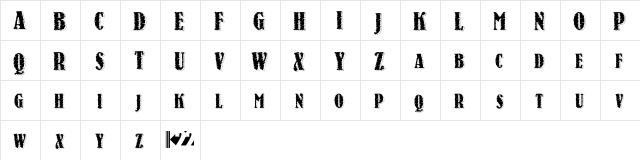
Stone Initials Regular
| Foundry | Toto |
| Designer | Toto |
Design Context for Stone Initials Typeface
Stone Initials is a composed and adaptable typeface that performs quietly and consistently across a wide range of design contexts.